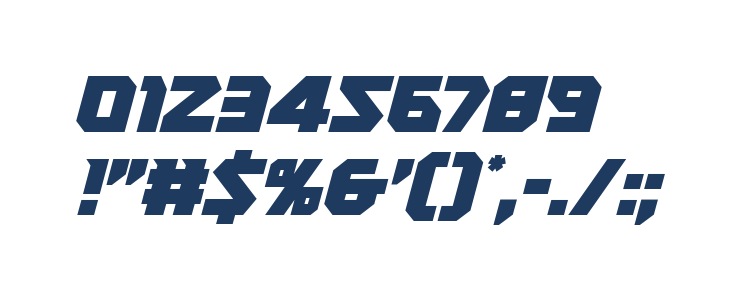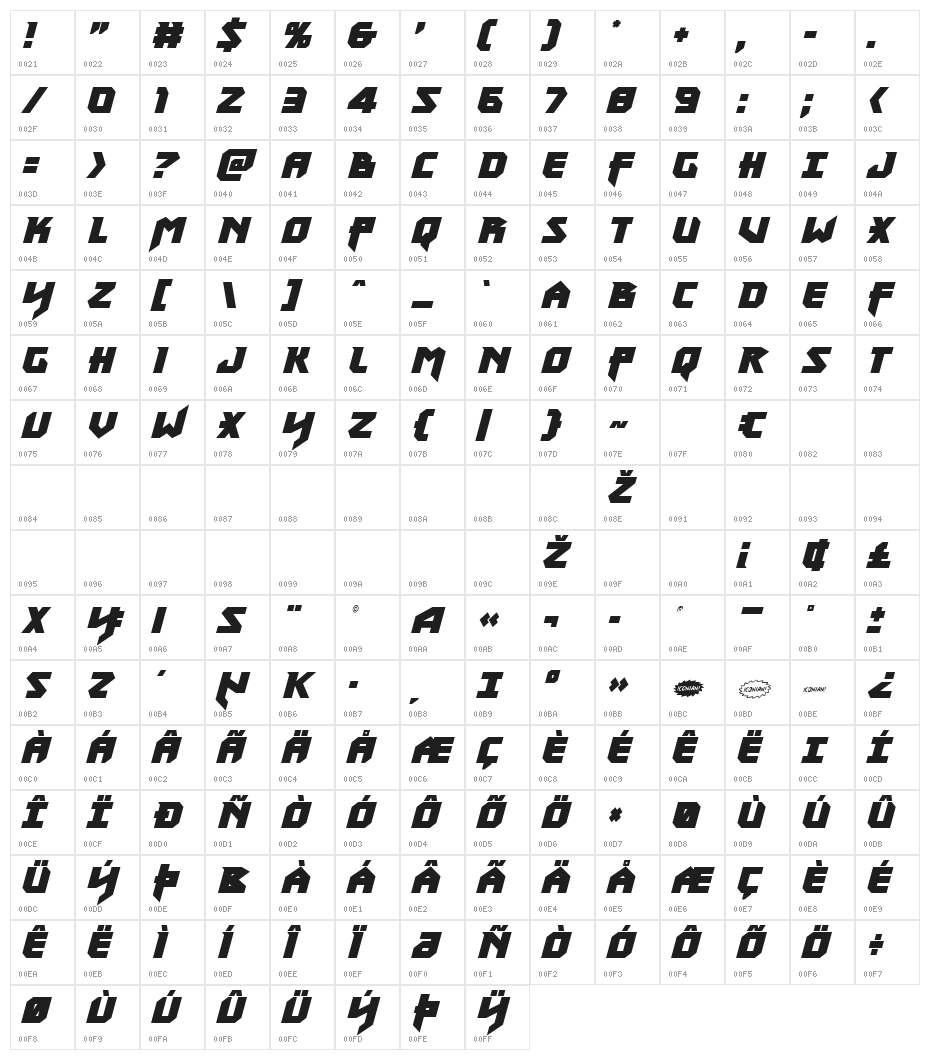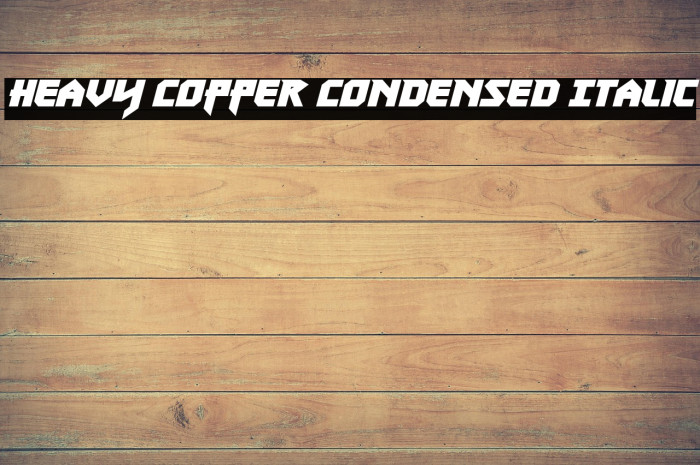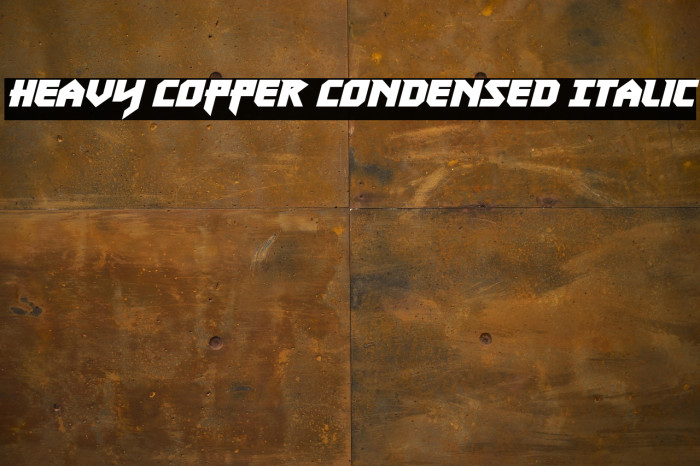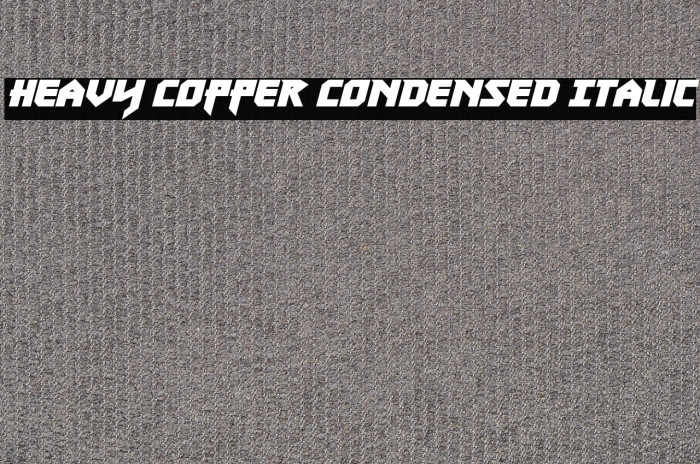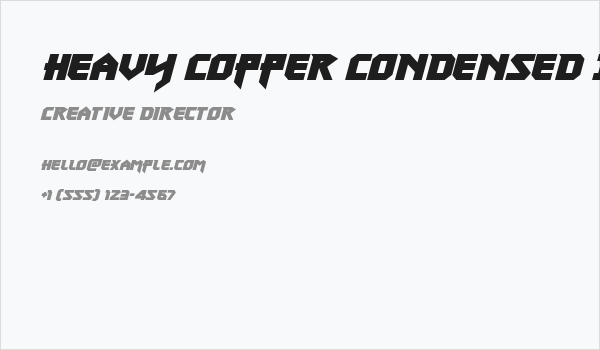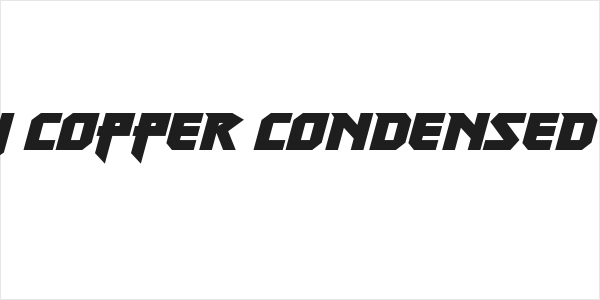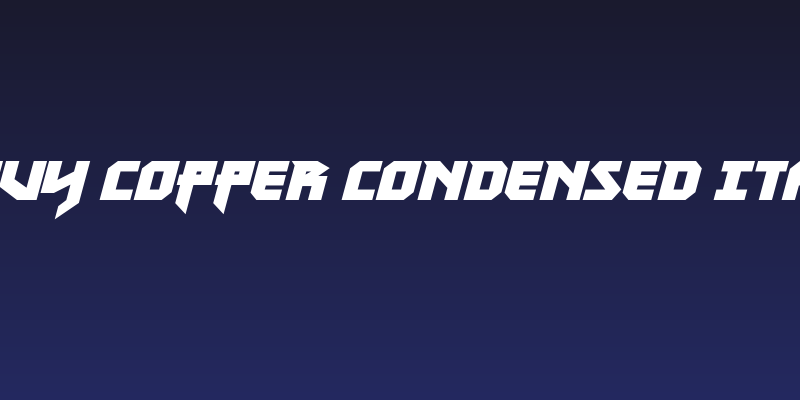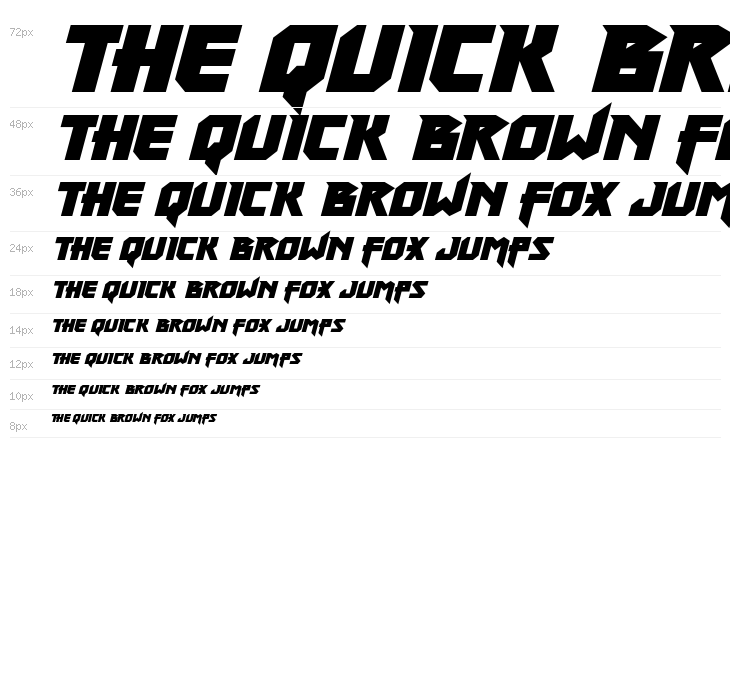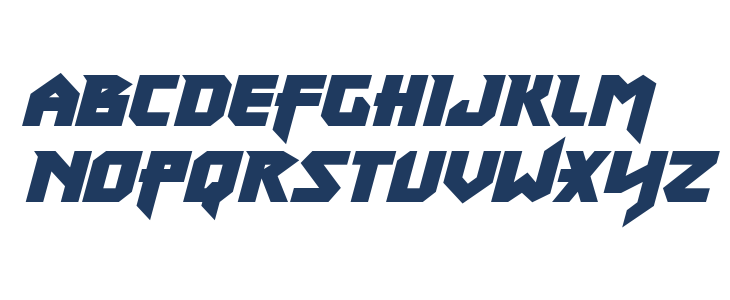
Heavy Copper Condensed Italic Font
Heavy Copper Condensed Italic Description
This font exhibits a bold and dynamic style with a condensed and italicized form. The characters are sharply angular, giving a sense of movement and energy. The strokes are thick and consistent, contributing to a strong visual impact. The design is modern and edgy, suitable for attention-grabbing headlines or logos. The uppercase and lowercase letters maintain a cohesive look, while the numbers and special characters complement the overall aesthetic.